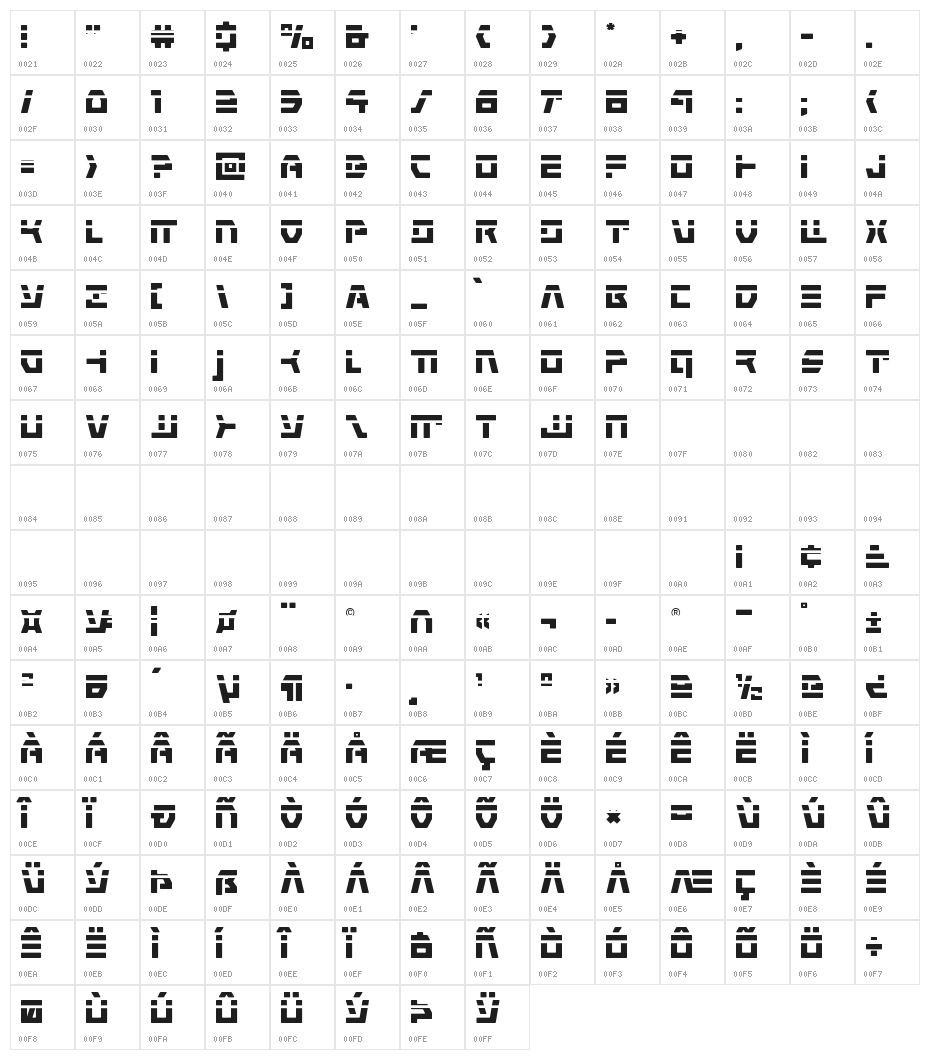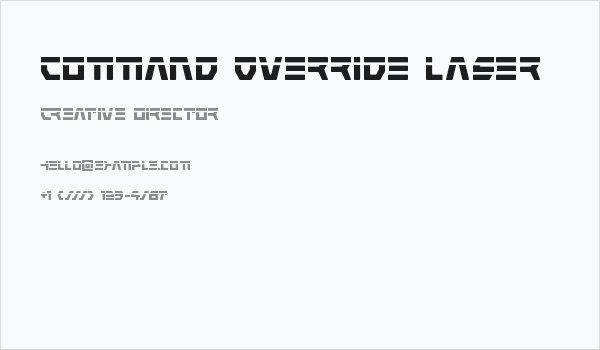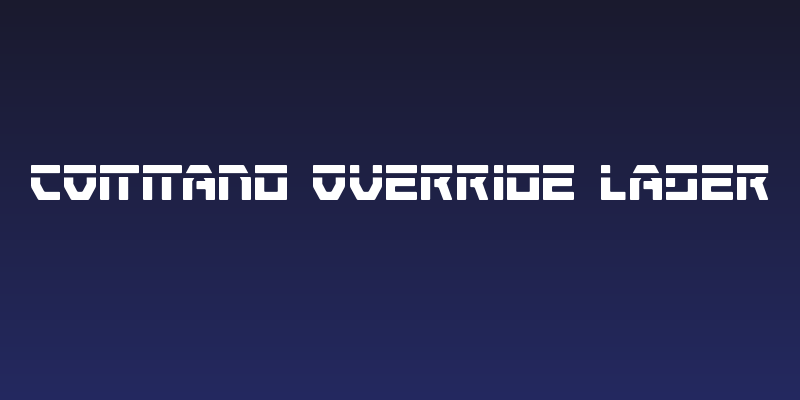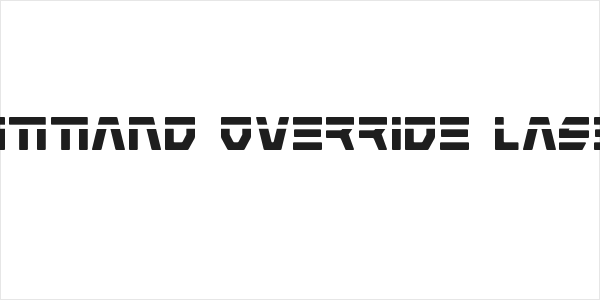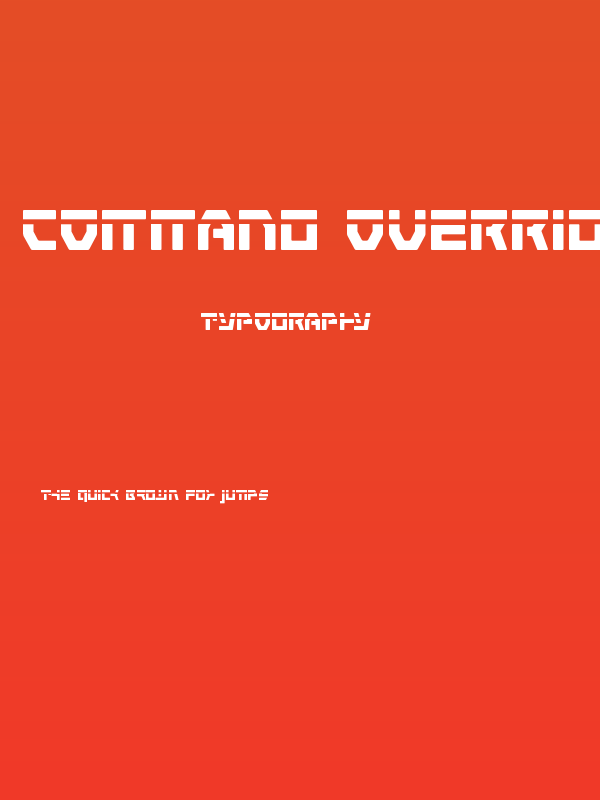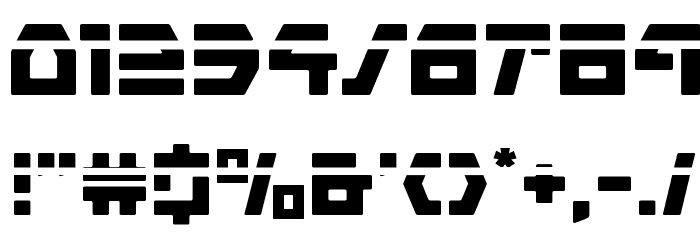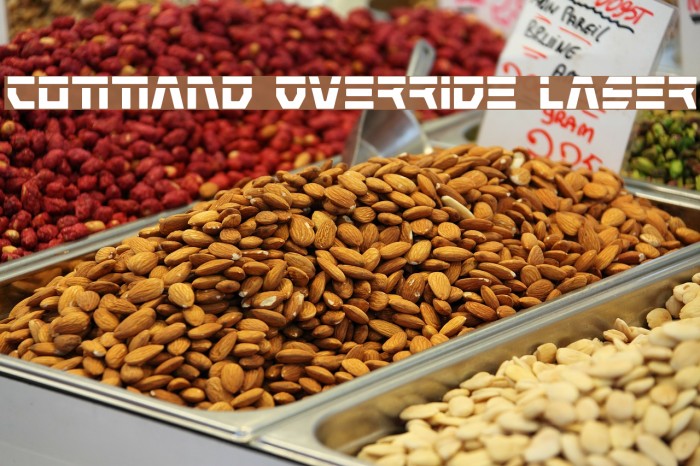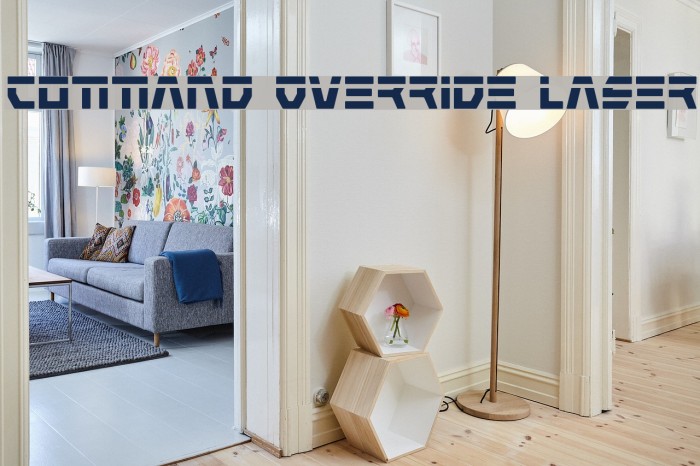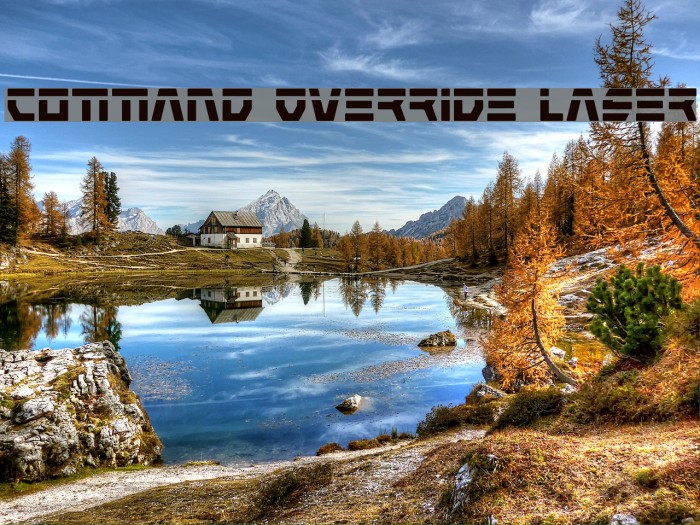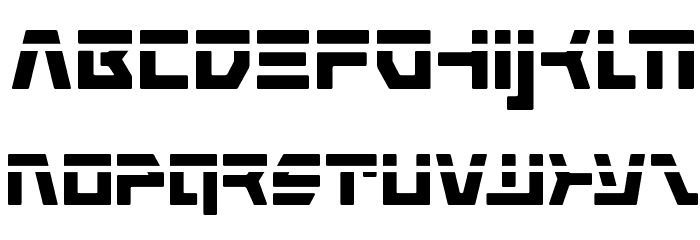
Command Override Laser Font
Command Override Laser Description
This font features a bold, futuristic design with a distinctly geometric structure. The characters are constructed with sharp angles and straight lines, giving it a digital, high-tech appearance. The uppercase and lowercase letters maintain a consistent style, with the lowercase letters mirroring the uppercase in form but slightly reduced in size. Numbers and special characters follow the same angular and bold design, ensuring uniformity across all glyphs. The font's heavy weight and solid form make it highly visible and impactful, suitable for projects that require a modern and assertive aesthetic.
| Proposed Projects | Ideal for technology branding, sci-fi themed designs, video game interfaces, and futuristic posters. |